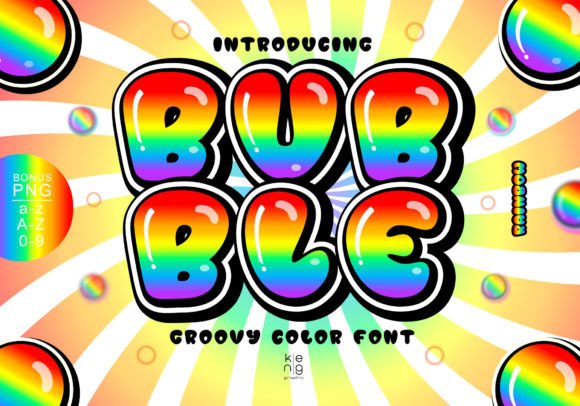
The Ultimate Guide to Bubble Rainbow Font: Adding a Pop of Color to Your Designs
I’ll never forget the time I was working on a project for a children’s party invitation. I wanted to create something that would grab the attention of kids and parents alike, but I was struggling to find the right font. That’s when I stumbled upon Bubble Rainbow Font, and it was love at first sight! ✨ The colorful, chunky letters instantly added a playful touch to my design, and I knew I had found the perfect fit.
An Honest Review of Bubble Rainbow Font
• ✅ Vibrant Colors: The font’s bright hues are perfect for designs that require a pop of color and energy.
• ✅ Chunky Shapes: The letters are well-crafted with a mix of bold and rounded shapes that create a sense of playfulness.
• ✅ Attention-Grabbing: The font’s bold appearance makes it perfect for logos, packaging, and designs that require a touch of excitement and personality.
While Bubble Rainbow Font is an amazing addition to any design, there are a few things to keep in mind: 🤔
• ⚠️ Legibility at Small Sizes: Due to the font’s chunky nature, it may not be the best choice for small text sizes or body text.
• ⚠️ Limited Versatility: While the font is perfect for playful designs, it may not be suitable for more formal or professional projects.
3. Take advantage of OpenType features, glyphs, and stylistic alternates to customize the font to your needs.
The Backstory Behind Bubble Rainbow Font
Bubble Rainbow Font was designed with one goal in mind: to create a font that would add a pop of color and energy to any design. The designer, inspired by the playful and carefree spirit of childhood, set out to create a font that would evoke feelings of joy and excitement. The result is a font that’s perfect for designs that require a touch of whimsy and personality.
Q: Is Bubble Rainbow Font suitable for body text?
A: While Bubble Rainbow Font is perfect for headlines and titles, it may not be the best choice for body text due to its chunky nature and limited legibility at small sizes.
Q: Can I customize the font to my needs?
A: Yes, Bubble Rainbow Font supports OpenType features, glyphs, and stylistic alternates, which can be used to customize the font to your needs.
Q: Is Bubble Rainbow Font available in different languages?
A: Yes, Bubble Rainbow Font supports multiple languages, but be sure to check the font’s character set to ensure it includes the characters you need.